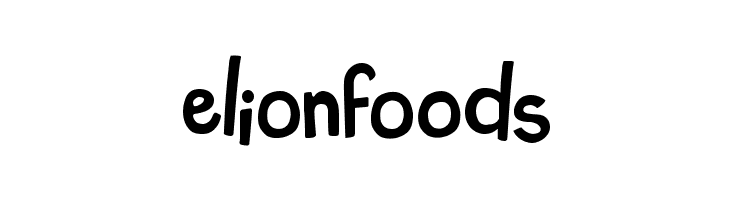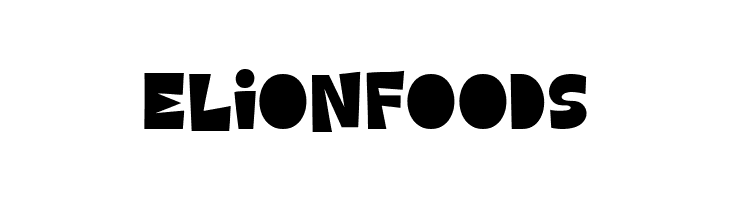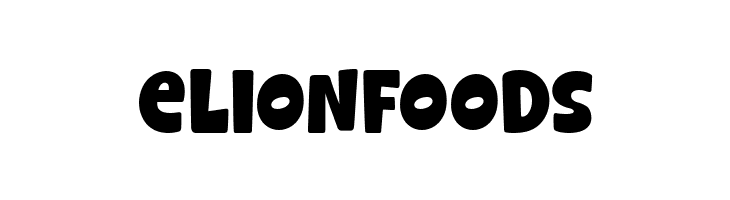
( Fonts by Jonathan S. Harris )
A bold, jagged, and energetic font with a modern handwritten style.
( Fonts by FG Studios )
A playful, hand-drawn font with bold, rounded characters.
( Fonts by Four Lines )
A bold, geometric font with playful and dynamic shapes.
( Fonts by Four Lines )
A bold, playful font with rounded, bubble-like characters.
( Fonts by Four Lines )
A playful, bubbly font with rounded, cartoonish characters.
( Fonts by Four Lines )
A bold, playful font with rounded edges and a retro vibe.
( Fonts by Four Lines )
A bold, playful font with rounded edges and a cohesive, slightly condensed style.
A bold, geometric font with characters in rounded squares, evoking vintage typewriter keys.
A bold, geometric font with characters enclosed in rounded squares, offering a modern and structured look.
Intricate geometric patterns with bold lines, ideal for decorative borders.